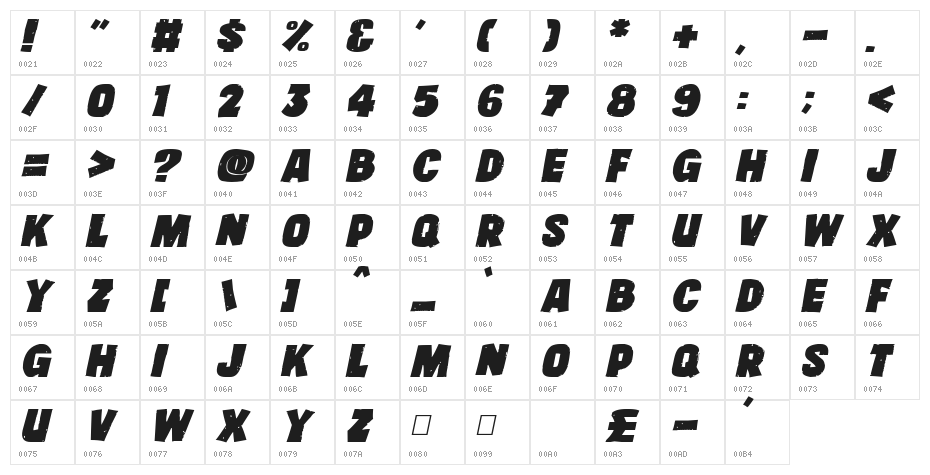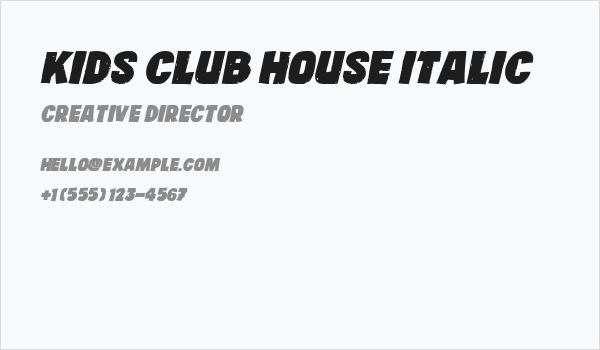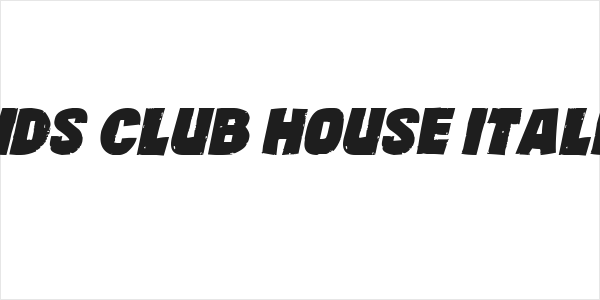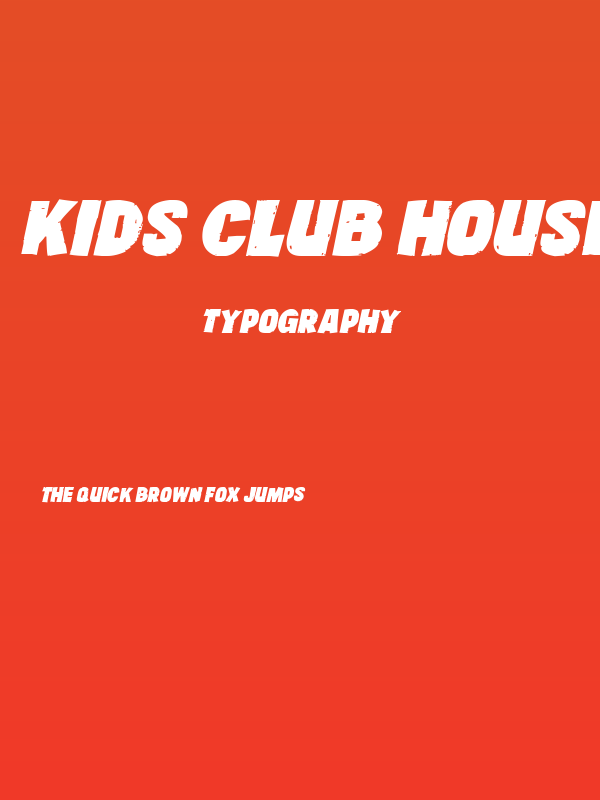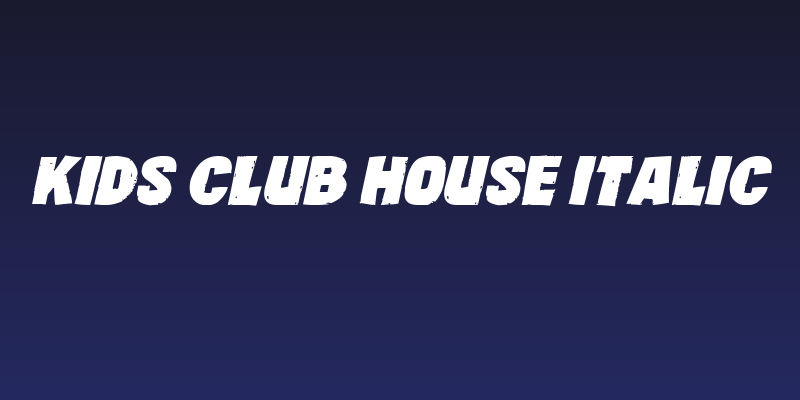
Kids Club House Italic Font
Kids Club House Italic Description
This font features a bold and playful style with a distressed texture that gives it a rugged, energetic appearance. The letters are italicized, adding a dynamic slant that enhances its lively character. The uppercase and lowercase letters are well-defined, with thick strokes and a slightly uneven finish that adds to its charm. The numbers and special characters maintain the same boldness and texture, ensuring consistency across all glyphs. This font is ideal for projects that require a fun, adventurous, and eye-catching typeface.
Overall StylePlayful, Energetic, Rugged
Proposed ProjectsPerfect for children's book covers, playful posters, adventure-themed branding, and dynamic social media graphics.